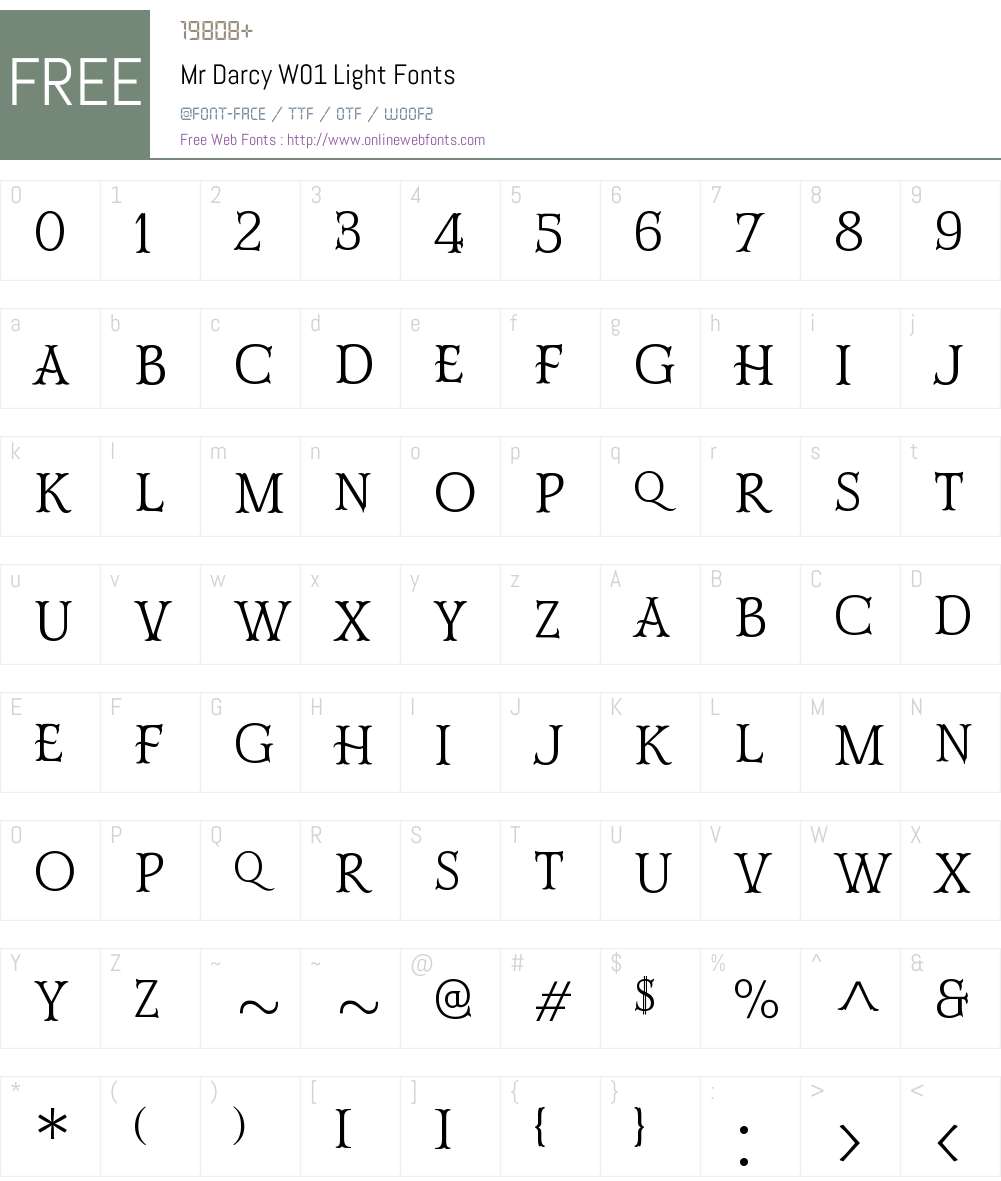
Mr Darcy Regular Font Free Download. Thousands of designers (famous or not) use the image font detection system to find a font or similar free fonts from an image. Explore mr darcy designed by jeremy dooley at adobe fonts.
23 professional mr darcy regular fonts to download. The employ of the mr. The attractive elegance of the contemporary has been conveyed into victorian times.
About Mr Darcy Regular Font.
Explore Mr Darcy Designed By Jeremy Dooley At Adobe Fonts.